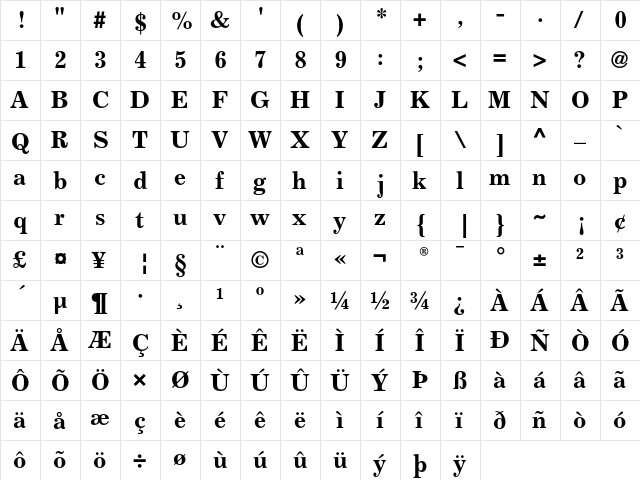
Excelsior Bold Font Preview
Excelsior Bold
Design Context for Excelsior Typeface
Excelsior takes a measured approach to typography — its balanced proportions and neutral character make it a reliable workhorse for both digital and print work. The heavy weight commands attention and anchors typographic hierarchies.